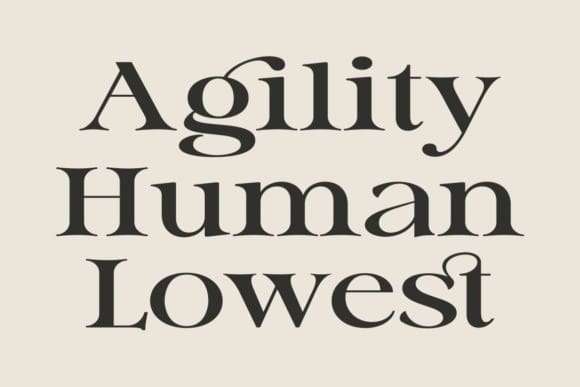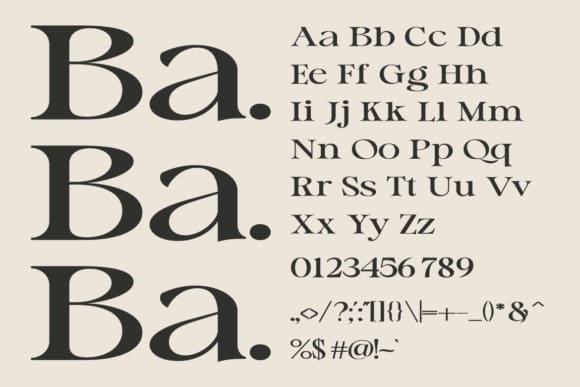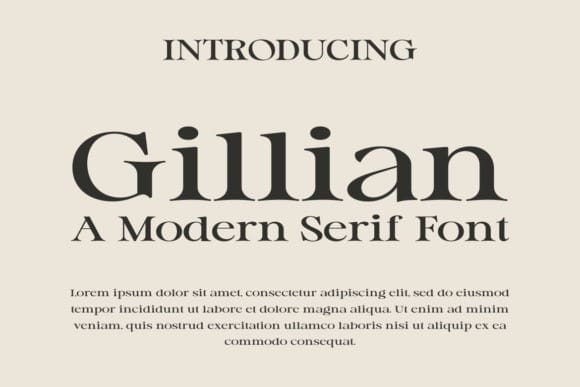
Gillian Serif Font
Gillian Serif Font is a stylish Modern Serif font that brings a contemporary touch to your text. With clean lines and a sleek design, Gillian adds a touch of sophistication to any project. Perfect for both professional documents and creative endeavors, this font strikes a balance between modern simplicity and timeless elegance. Upgrade your typography with Gillian Serif for a fresh and polished look that suits a variety of applications.